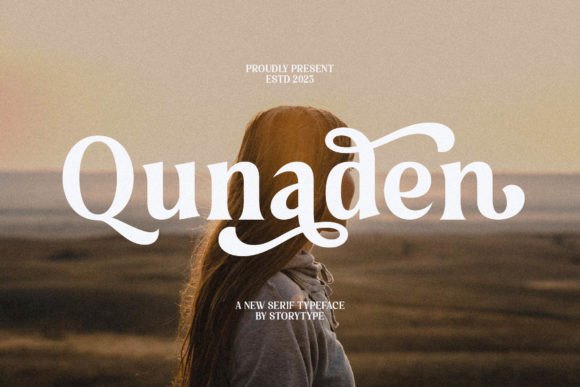
Unleash the Power of Qunaden Font: An Exquisite Typeface for Digital Elegance
Embark on a typographical journey with Qunaden Font, a modern display typeface designed to captivate audiences and elevate your digital creations. Crafted by the skilled artisans at Storytype Studio, Qunaden is an embodiment of elegance, luxury, and sophistication, offering a perfect solution for designers, marketers, and content creators seeking to make a lasting impression.
From captivating logos and book titles to movie posters and fashion branding, Qunaden's versatility knows no bounds. Its distinctive letterforms, meticulously crafted with smooth curves and sharp edges, exude a timeless charm that transcends trends. Whether you seek to convey a sense of luxury, creativity, or sophistication, Qunaden Font is the ultimate choice for designers seeking to weave magic into their digital tapestry.
Experience the transformative power of Qunaden Font as it effortlessly elevates your website design, leaving a lasting impact on visitors. Its carefully balanced strokes and harmonious proportions create a visual symphony that commands attention and invites engagement. Qunaden is not just a font; it's a statement of style, a testament to your discerning taste and commitment to excellence.
Unleash your creativity with Qunaden Font and watch as your designs blossom into masterpieces of visual storytelling. Its boundless potential opens up a world of possibilities, empowering you to craft designs that resonate with your audience and leave an indecipherable mark on their minds.
Embrace Qunaden Font today and unlock the gateway to digital elegance. Let your designs shine with a brilliance that captivates and inspires. Join the ranks of those who have embraced Qunaden's allure and witnessed the transformative power of exceptional typography.